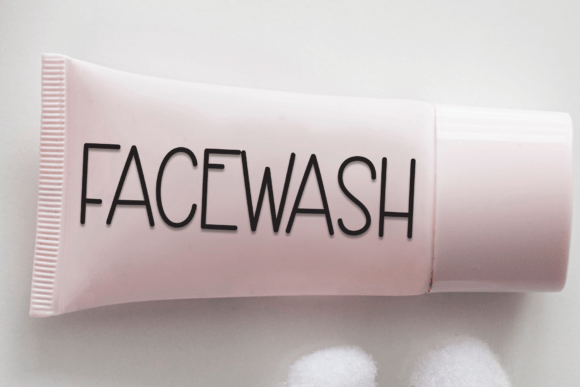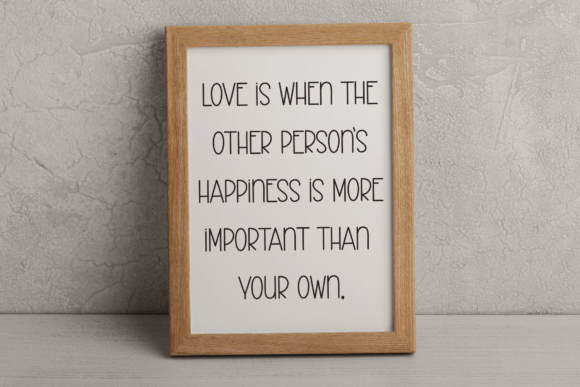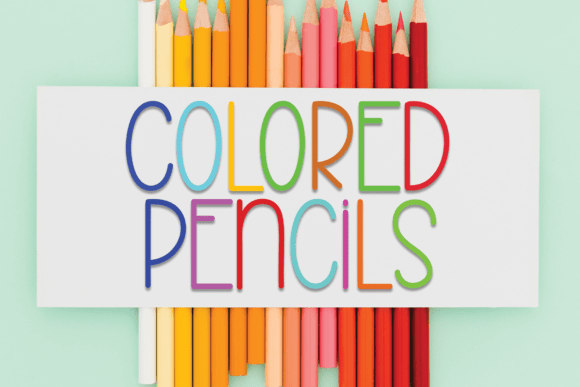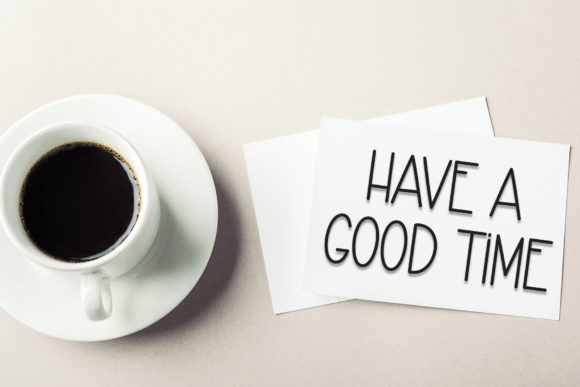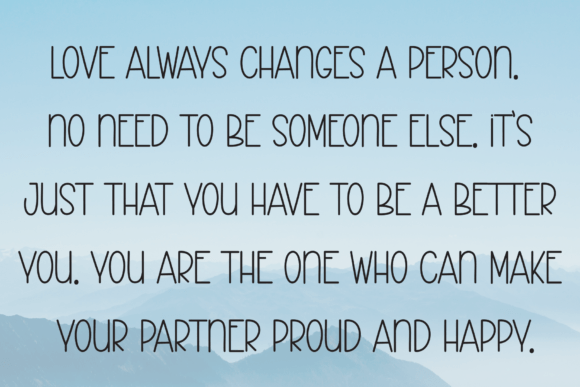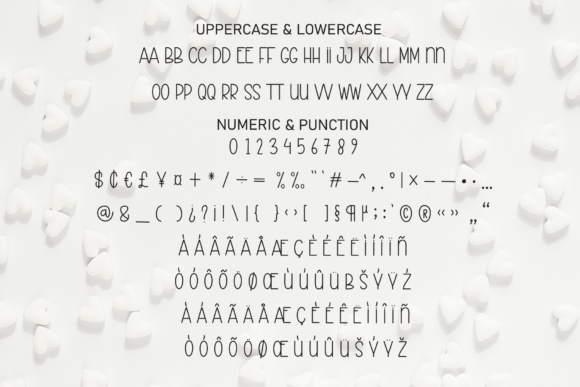
Heart Lovely Font: Adding a Touch of Whimsy to Your Designs
Are you tired of using the same old fonts in your designs? Look no further than the Heart Lovely Font, a delightful handwritten display font that is sure to bring a touch of warmth and friendliness to your creations. With its charming nuances and laid-back elegance, this font is perfect for adding a hint of whimsy to wedding invites, greeting cards, and any other design that needs a bit of personality.
The Perfect Balance of Cute and Refined
What sets the Heart Lovely Font apart is its ability to balance a lighthearted, cute aura with a refined simplicity. This unique balance makes it an excellent choice for designers and crafters who want to add a touch of fun and playfulness to their designs without sacrificing elegance. Whether you’re creating a wedding invitation or a greeting card, this font is sure to make your design stand out from the crowd.
A Breath of Fresh Air for Your Designs
If you’re looking for a font that will bring a breath of fresh air to your designs, look no further than the Heart Lovely Font. With its captivating allure and fun typography, this font is sure to add a hint of joy to every stroke. Whether you’re a seasoned designer or a crafty DIY enthusiast, this font is sure to inspire you to create something truly special.
Perfect for Wedding Invites and Greeting Cards
The Heart Lovely Font is particularly well-suited for wedding invites and greeting cards. Its charming nuances and laid-back elegance make it perfect for adding a touch of whimsy and romance to your designs. Imagine creating a beautiful wedding invitation with this font – the delicate curves and playful strokes are sure to set the tone for a joyful and celebratory occasion.
Adding a Touch of Whimsy to Your Designs
One of the best things about the Heart Lovely Font is its ability to add a touch of whimsy to your designs. Whether you’re creating a children’s party invitation or a greeting card for a friend, this font is sure to bring a smile to the recipient’s face. Its playful strokes and delicate curves make it perfect for adding a bit of personality to your designs.
Refined Simplicity
While the Heart Lovely Font is certainly playful and whimsical, it also has a refined simplicity that makes it perfect for a wide range of design applications. Whether you’re creating a formal wedding invitation or a casual greeting card, this font is sure to add a touch of elegance and sophistication to your design.
Experience the Magic of Heart Lovely Font
If you’re looking for a font that will add a touch of magic to your designs, look no further than the Heart Lovely Font. With its captivating allure and fun typography, this font is sure to inspire you to create something truly special. Whether you’re a seasoned designer or a crafty DIY enthusiast, this font is sure to bring a hint of joy to every stroke.
Key Features of Heart Lovely Font
• Delightful handwritten display font
• Perfect for wedding invites, greeting cards, and other designs that need a touch of whimsy
• Balances a lighthearted, cute aura with a refined simplicity
• Captivating allure and fun typography
• Playful strokes and delicate curves
• Refined simplicity makes it perfect for a wide range of design applications
In conclusion, the Heart Lovely Font is a unique and versatile font that is sure to add a touch of whimsy and elegance to your designs. With its captivating allure and fun typography, this font is perfect for designers and crafters who want to create something truly special. Whether you’re creating a wedding invitation, greeting card, or any other design, the Heart Lovely Font is sure to bring a hint of joy to every stroke.
Get Ready to Fall in Love with Heart Lovely Font
If you’re ready to add a touch of magic to your designs, get ready to fall in love with the Heart Lovely Font. With its delightful handwritten display and charming nuances, this font is sure to become a favorite in your design repertoire. So why wait? Experience the magic of Heart Lovely Font today and bring a hint of joy to every stroke!